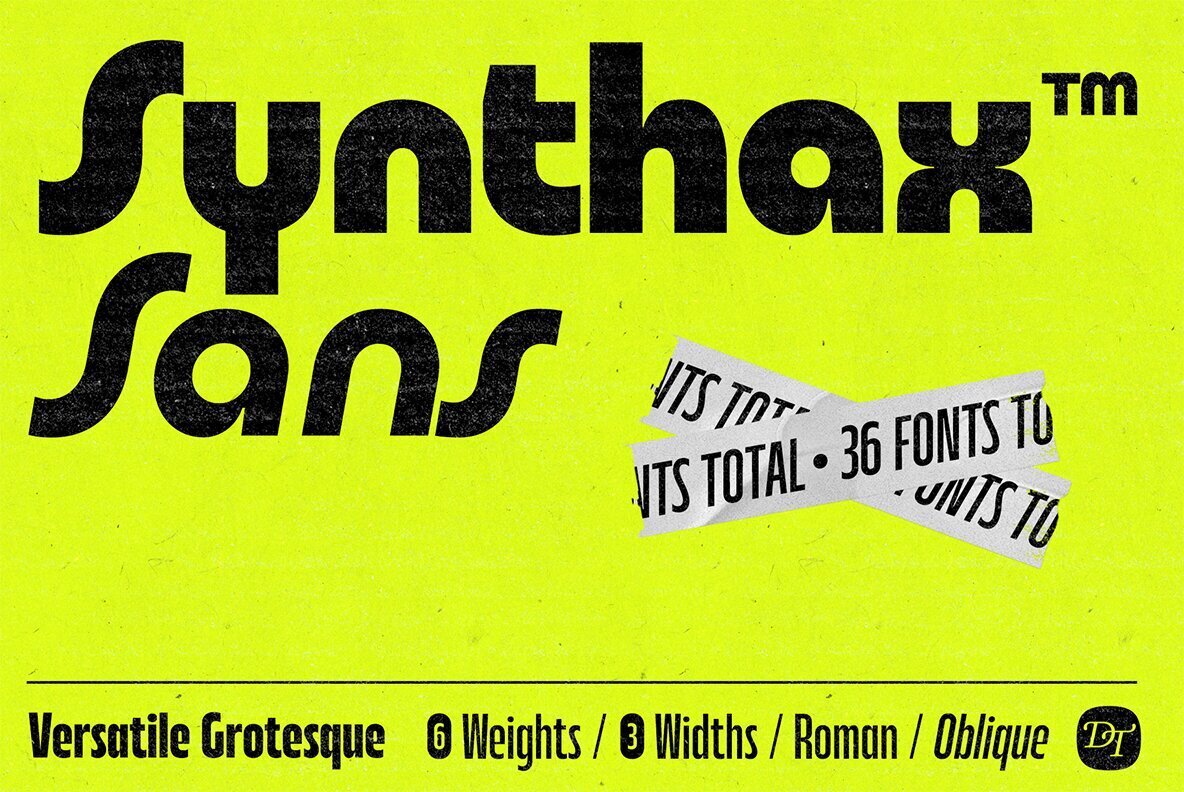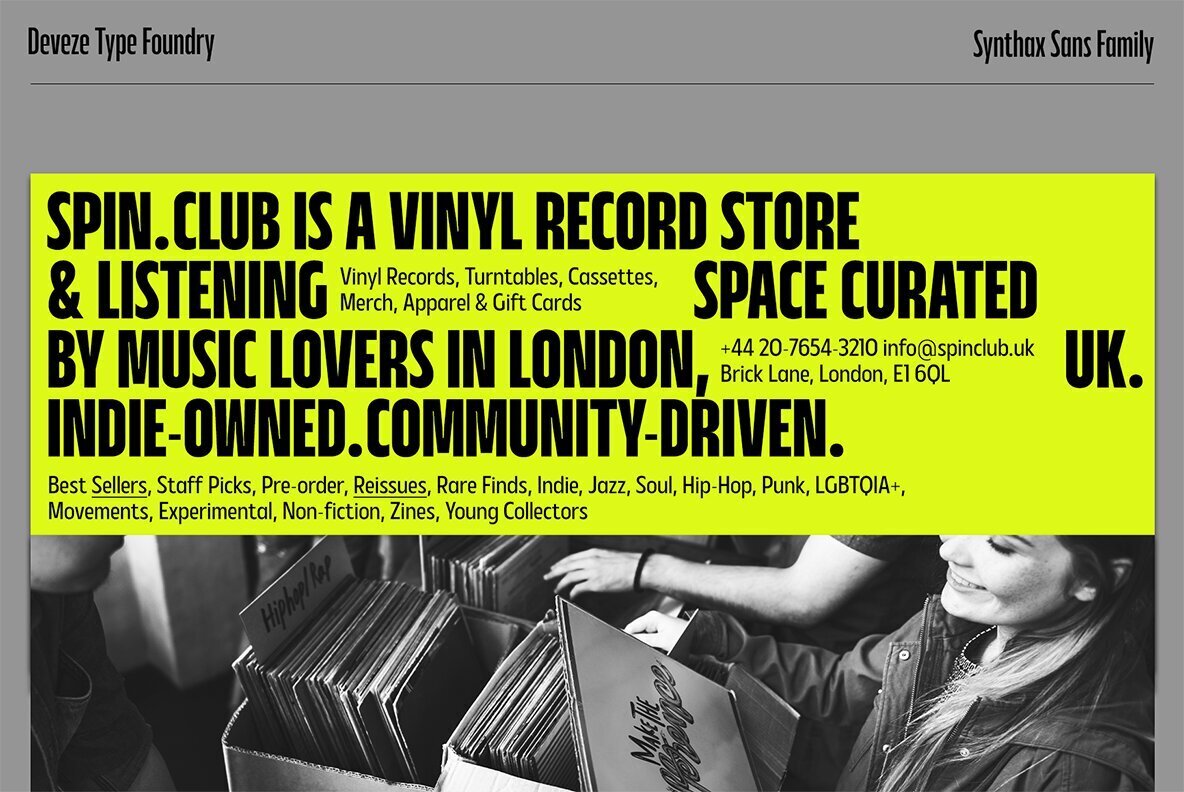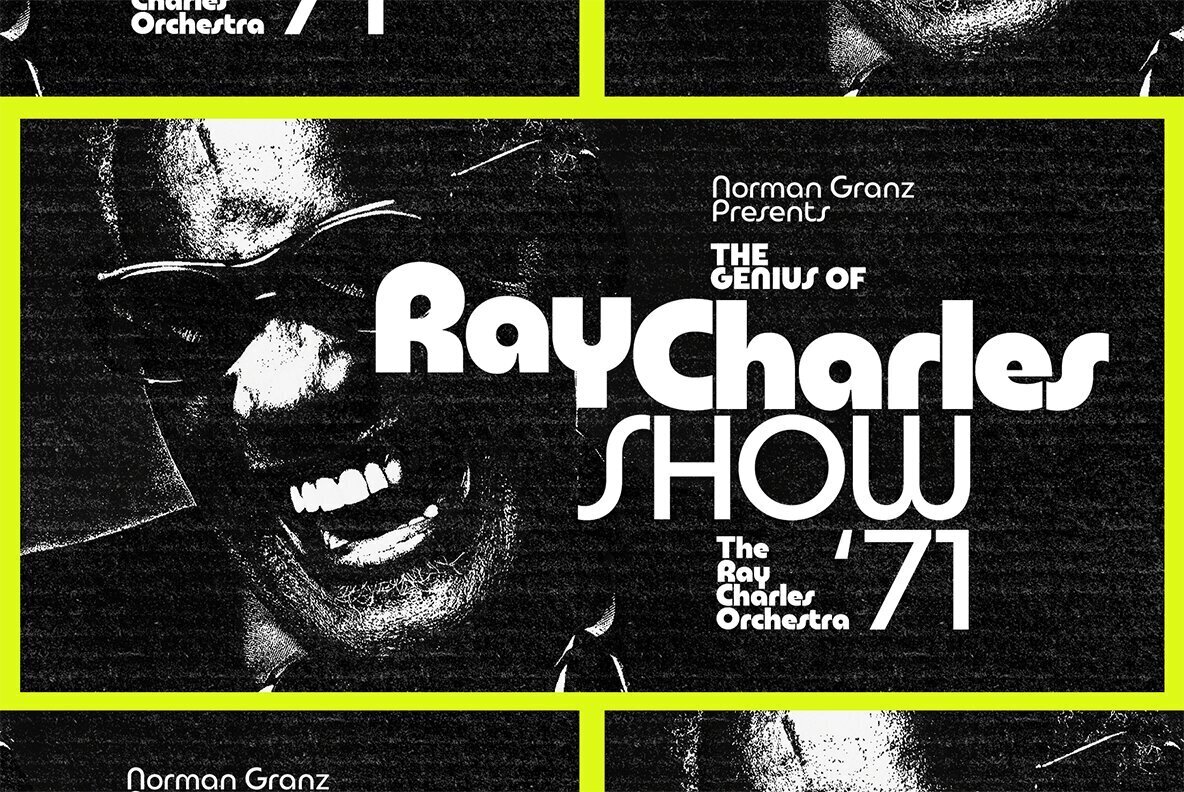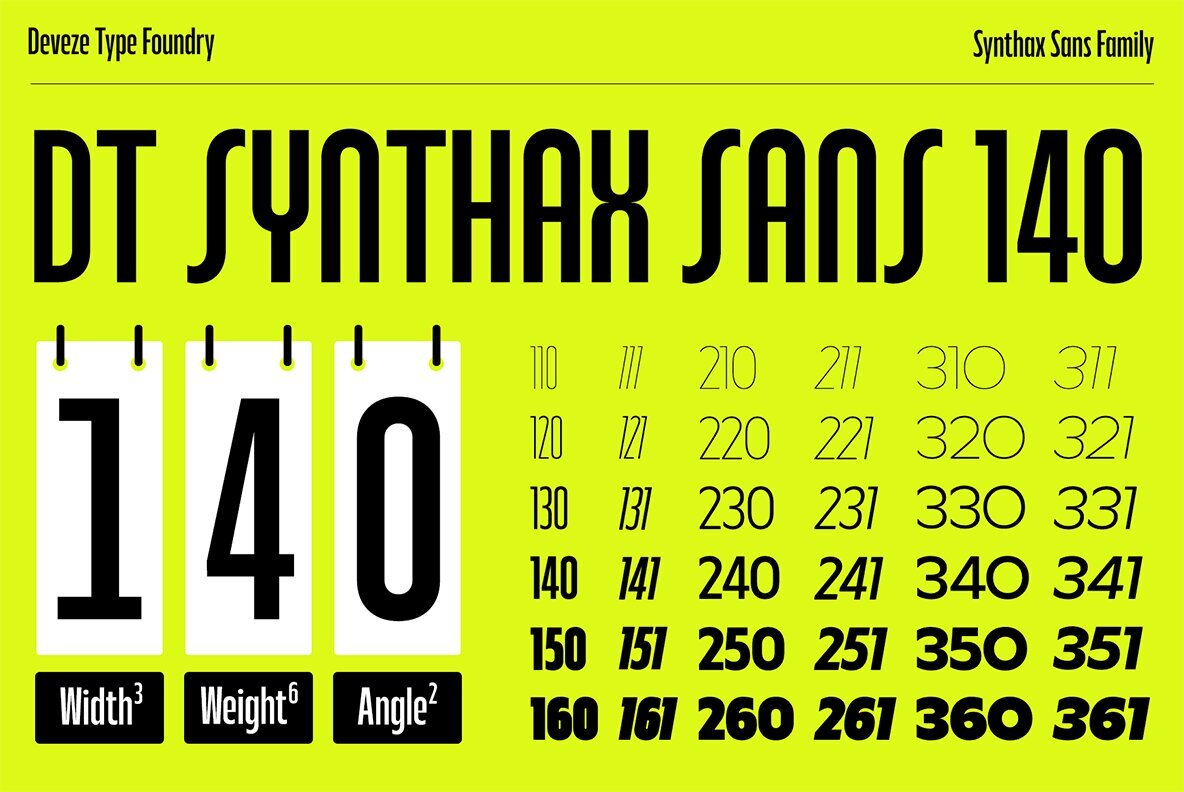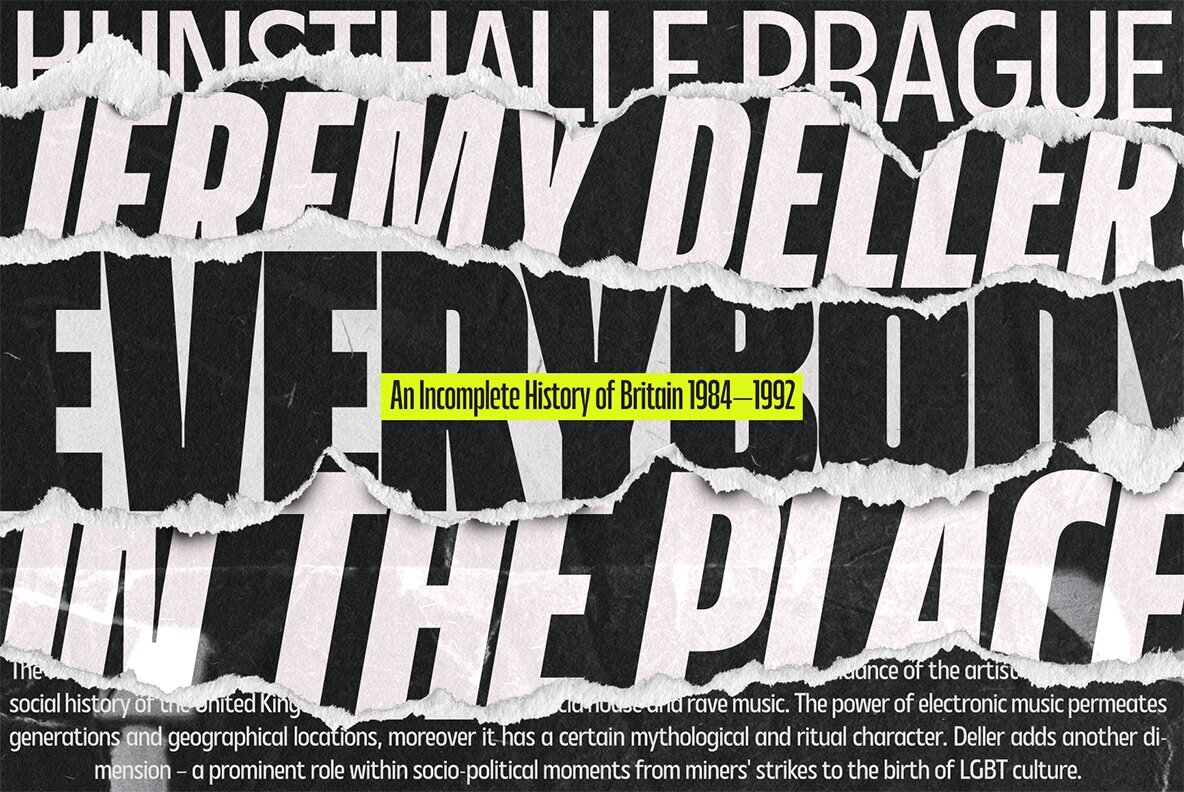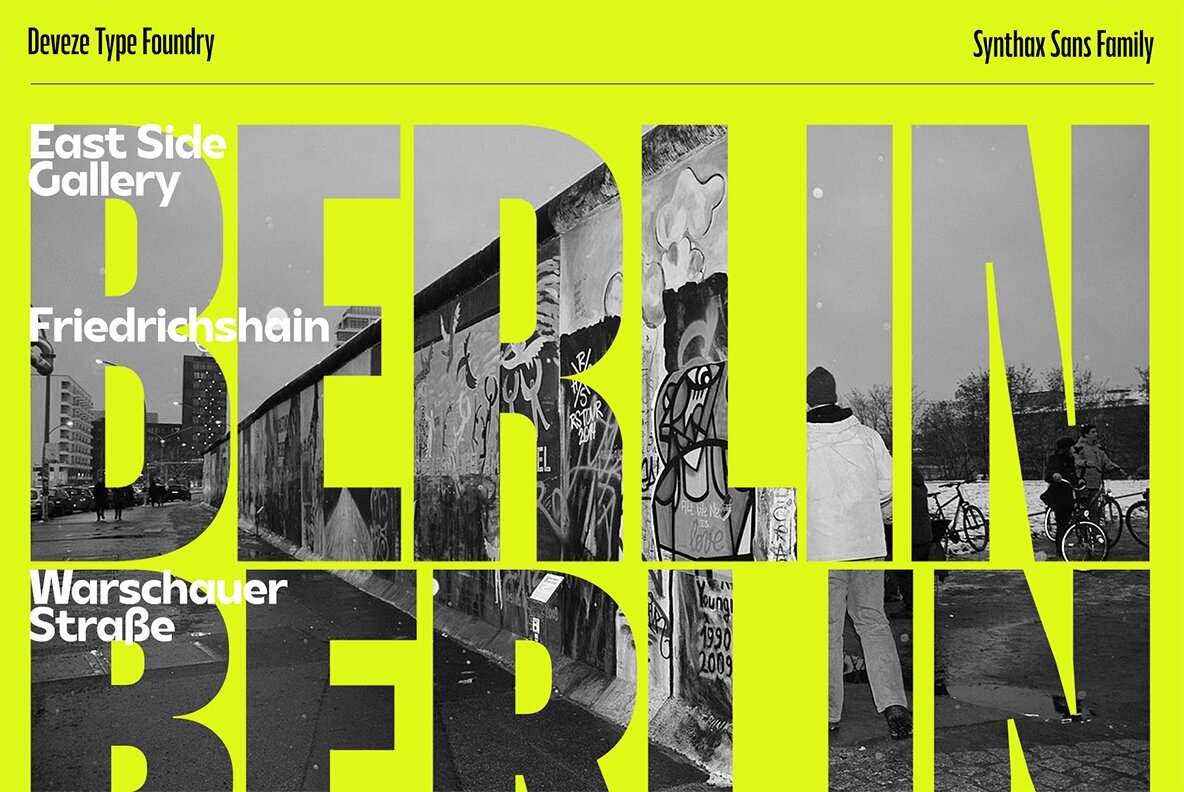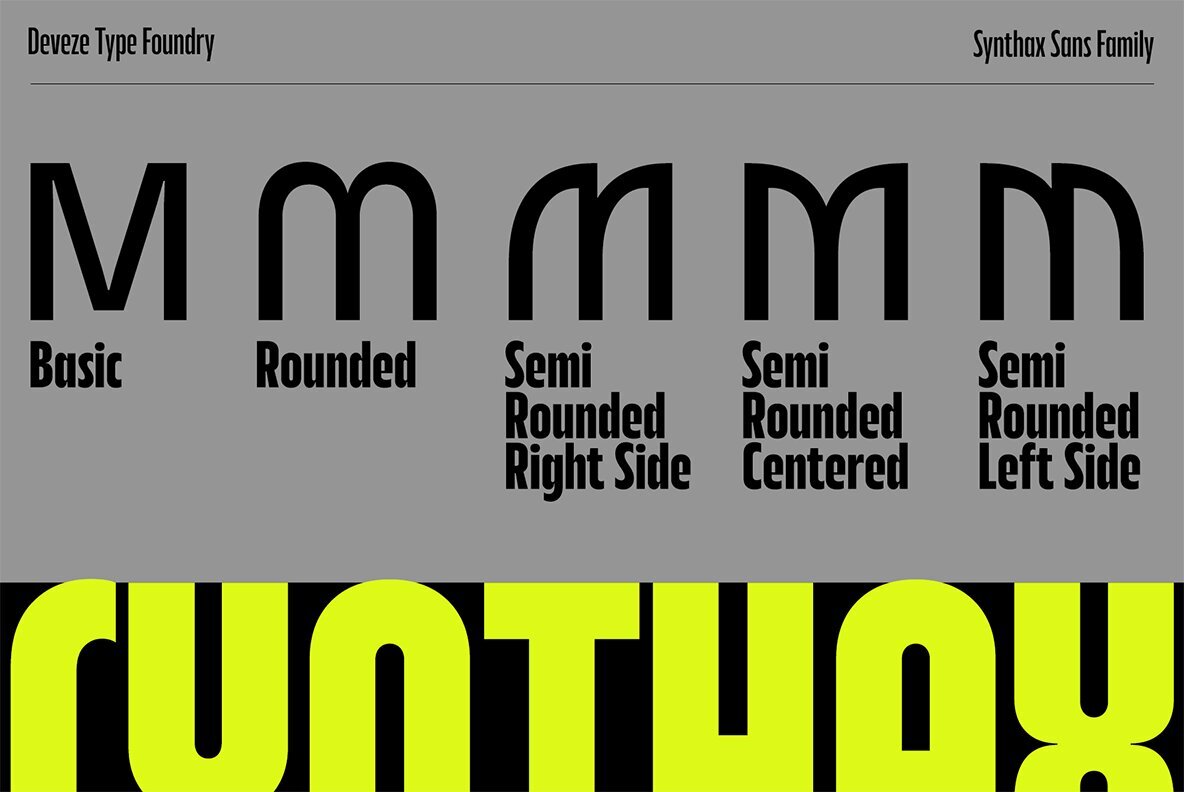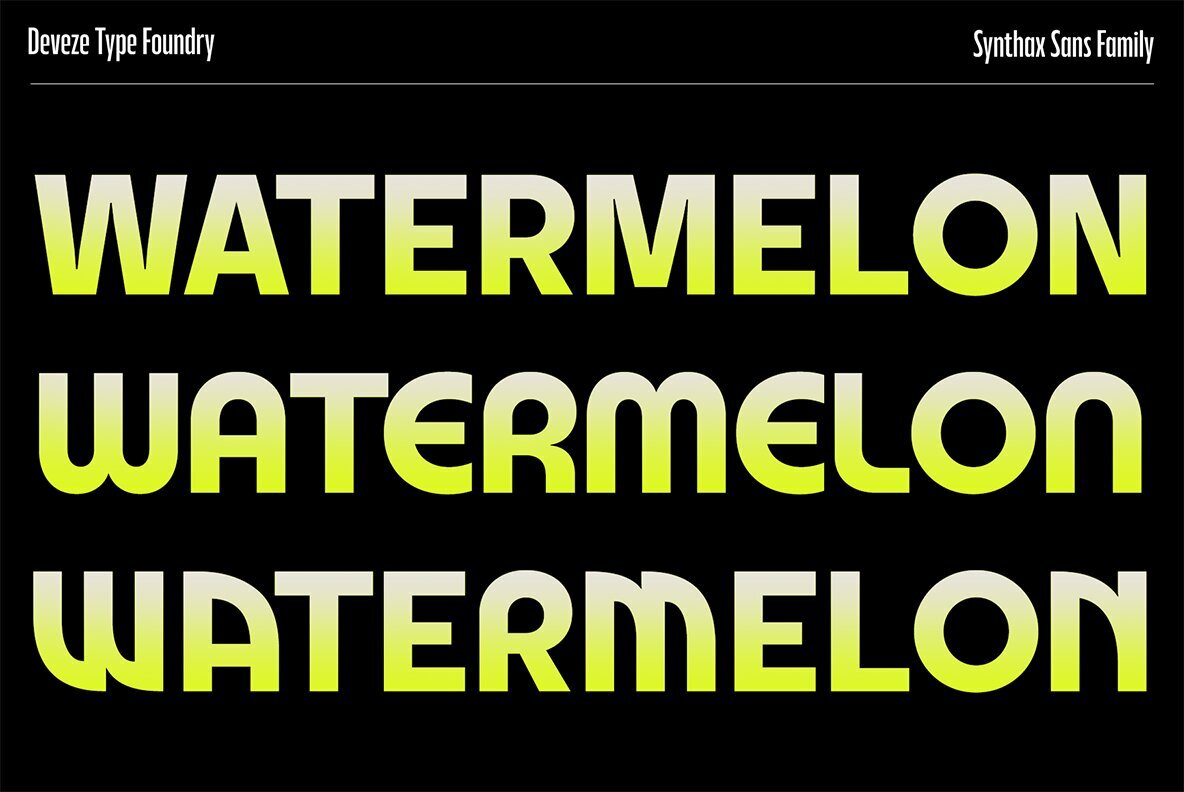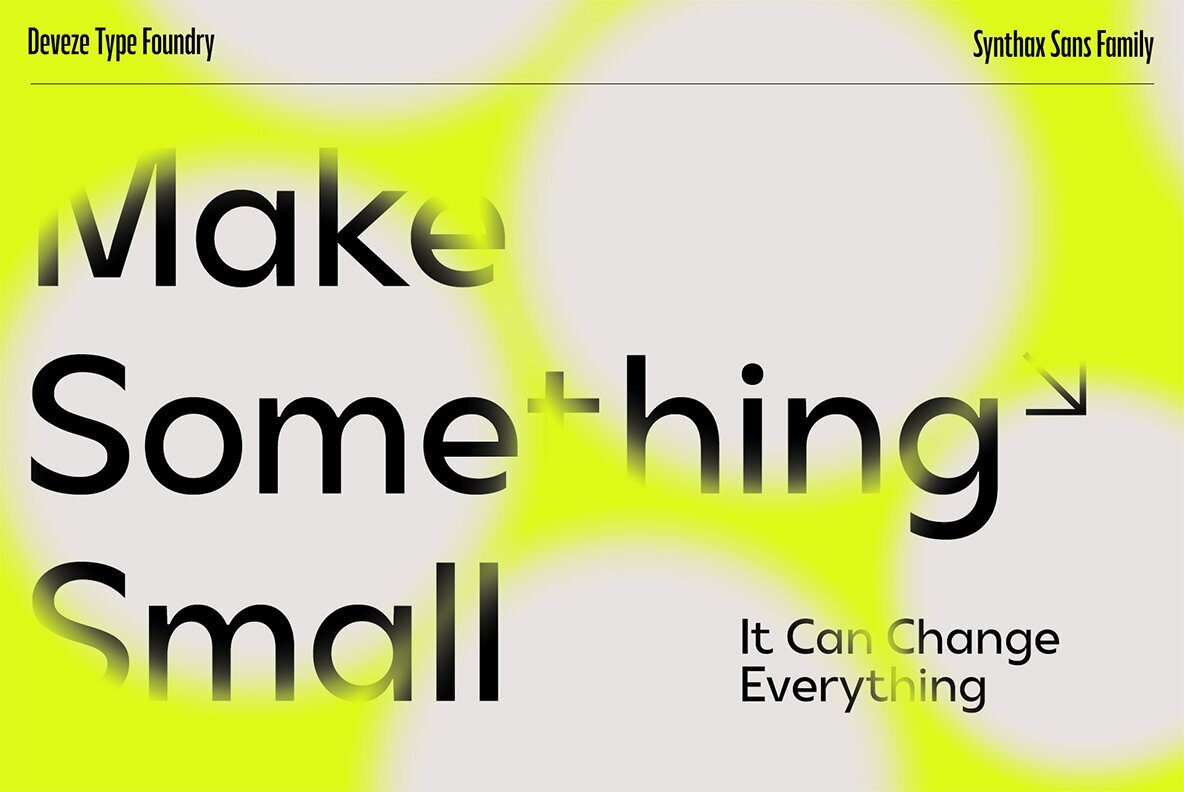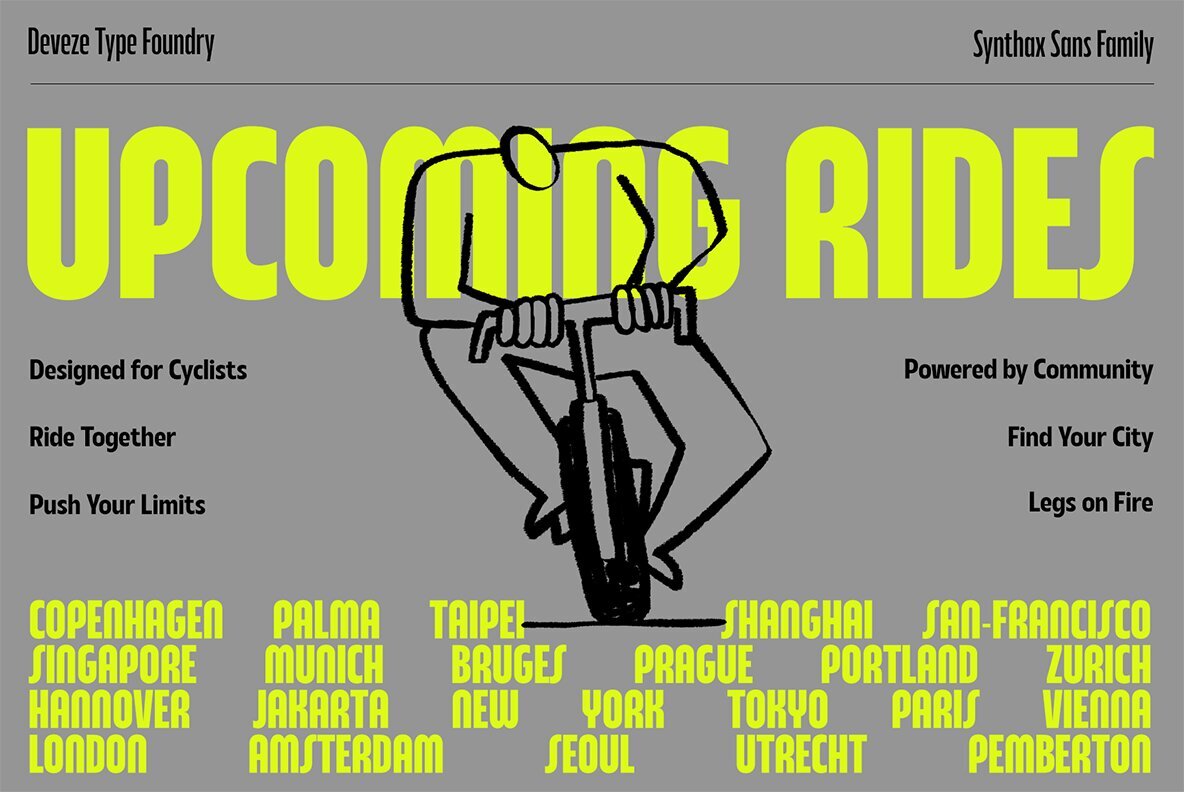
DT Synthax Sans Font
DT Synthax Sans stands as a versatile force in the realm of grotesque typefaces. Its design seamlessly blends the precision of Swiss-style typography with the playfulness of retro 80s curves. The core of this typeface is marked by cleanliness, balance, and modernity. Yet, with a simple change using stylistic sets, it transforms to reveal rounded, vinyl-soft forms that echo nostalgic sentiments. This typeface offers three distinct widths, from the disciplined Condensed to the assertive Wide, allowing it to adapt to various design needs. It also provides six weights accompanied by matching Obliques, ensuring a comprehensive range for expression. Features: DT Synthax Sans is more than just a font family; it is a modular system designed to craft identities that are both timeless and unexpected.DT Synthax Sans: A Versatile Grotesque Typeface